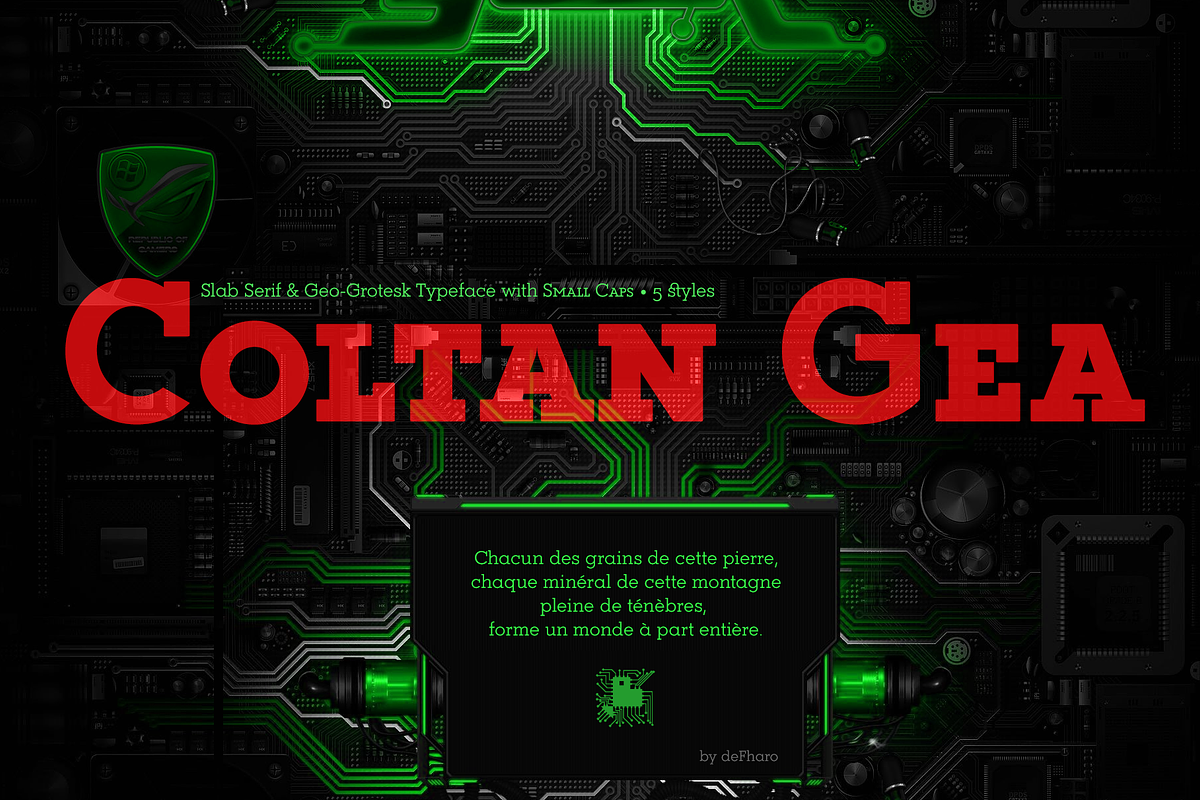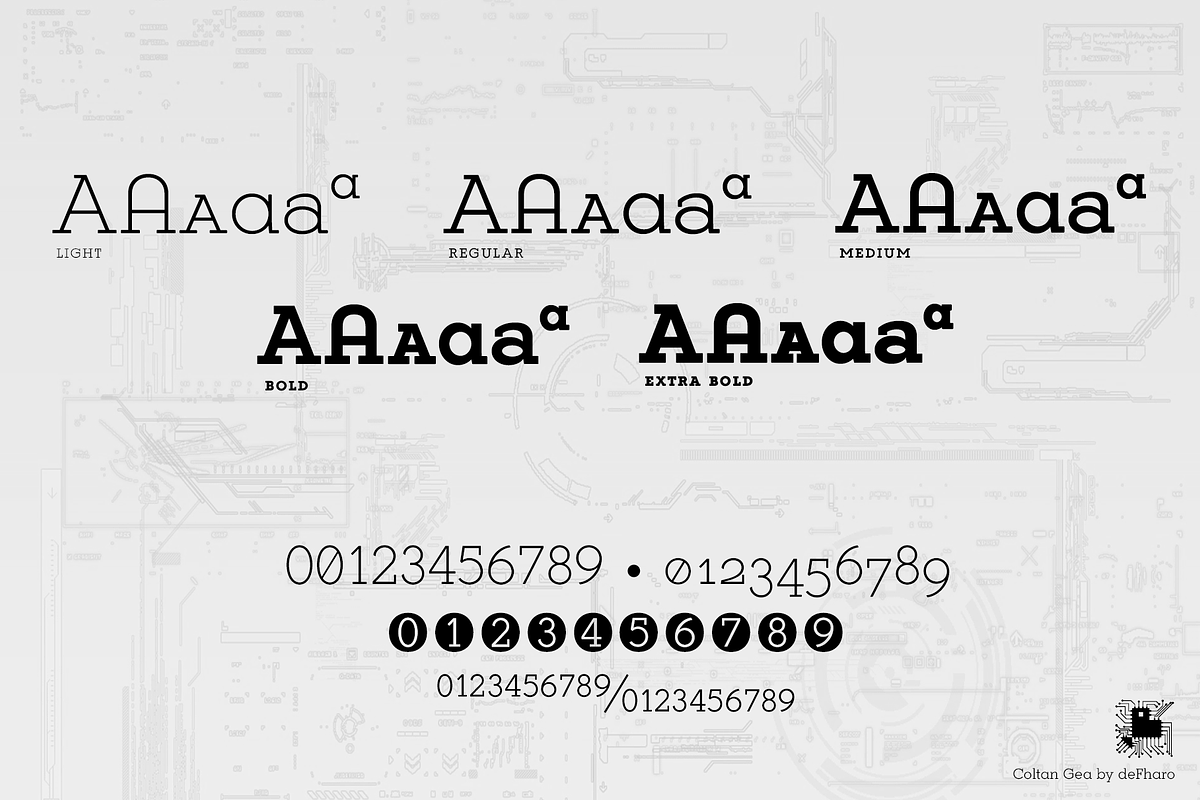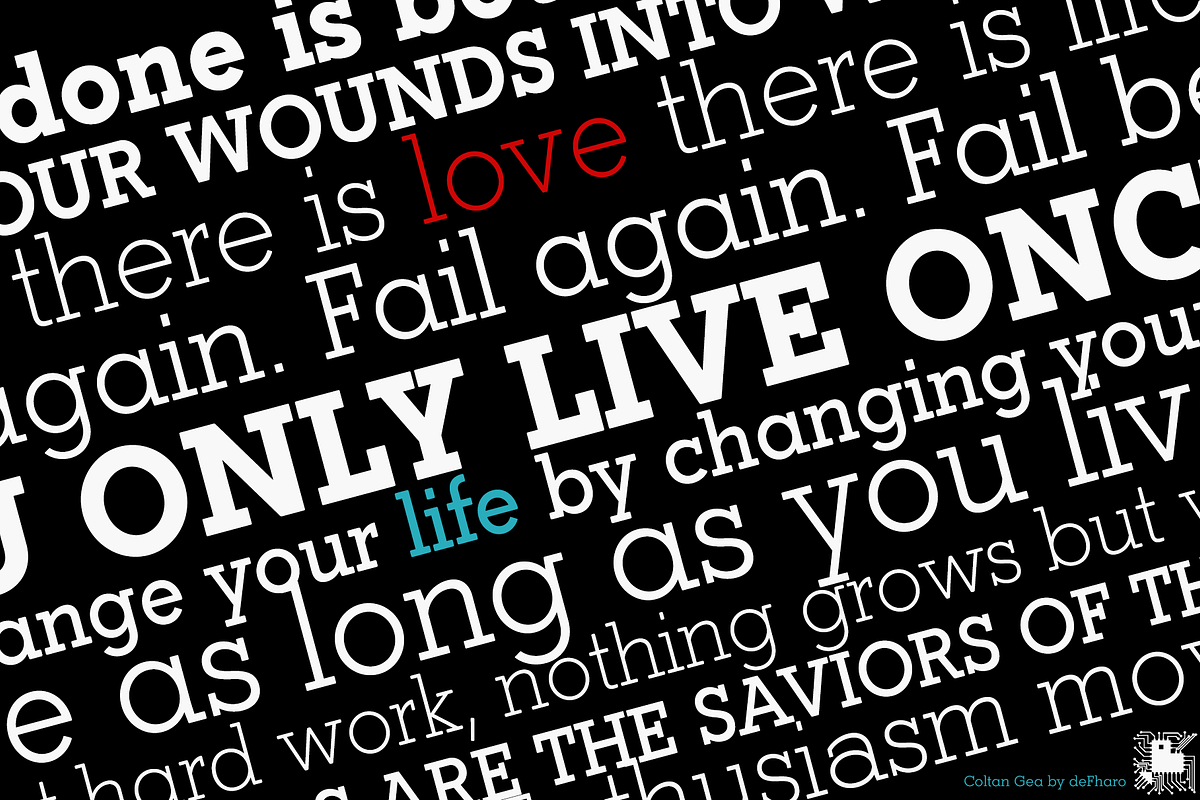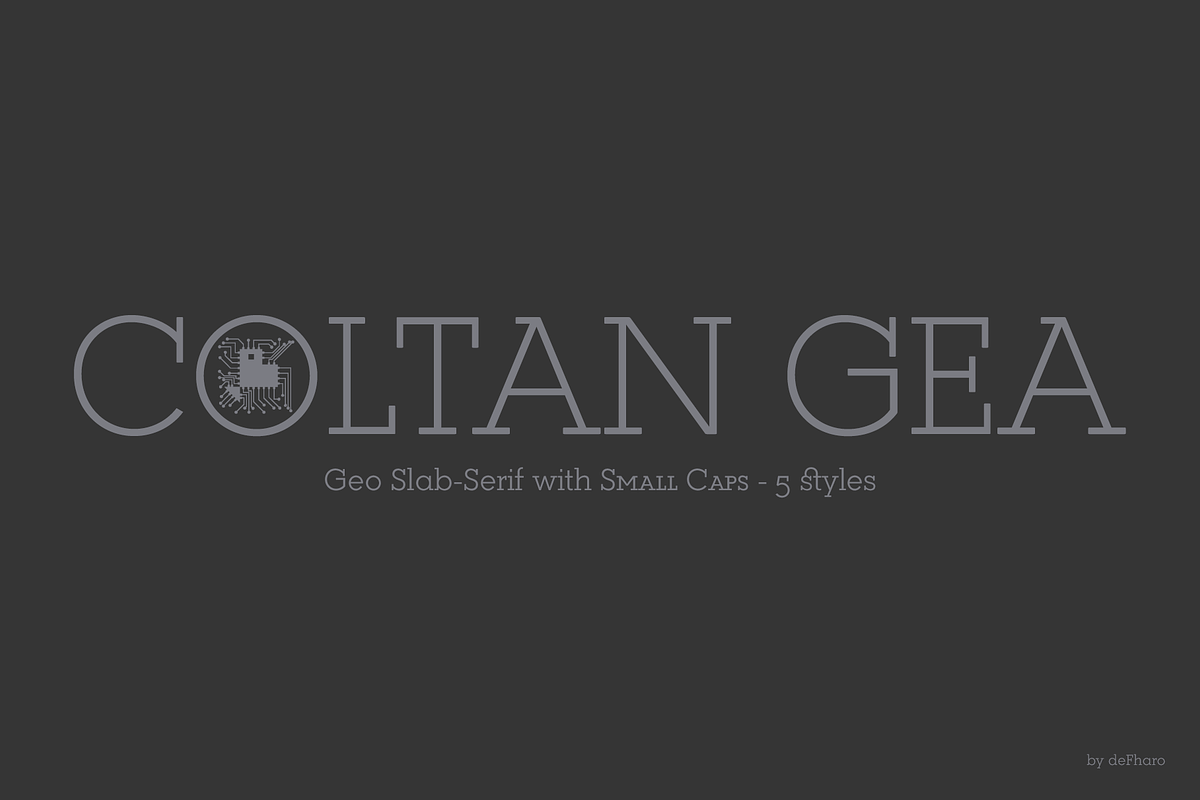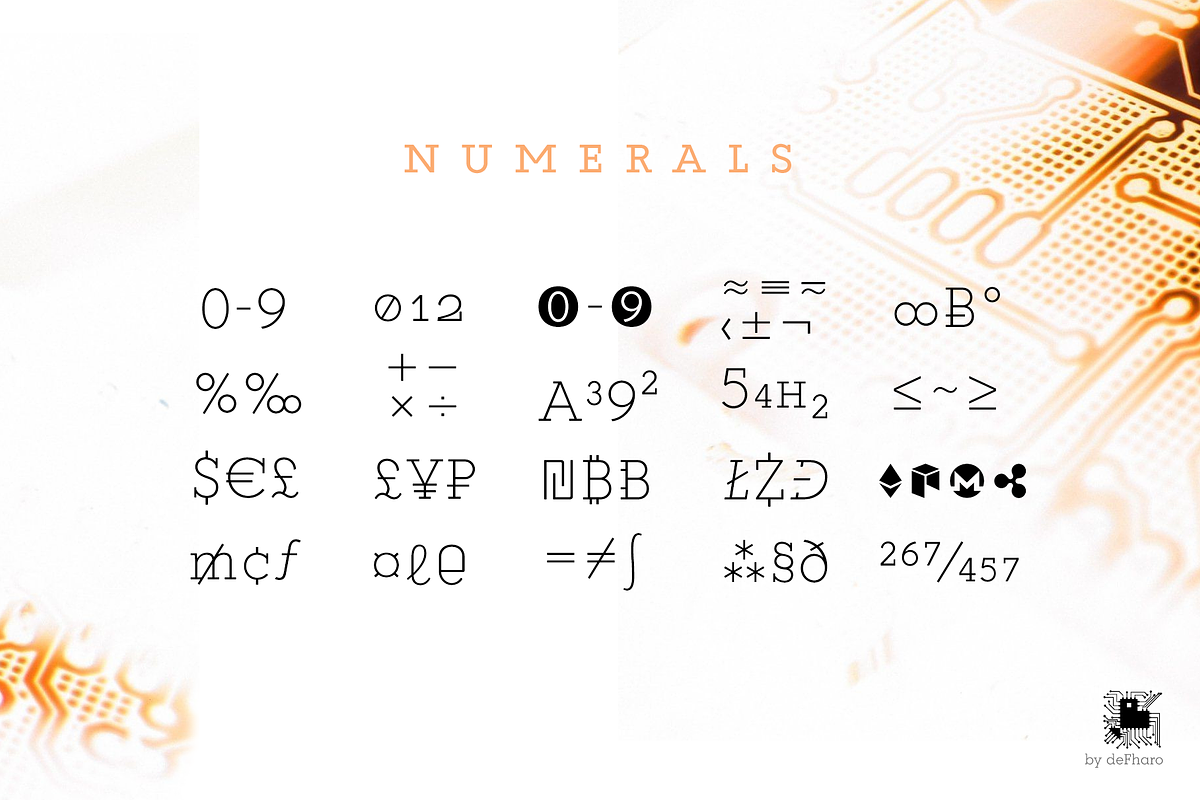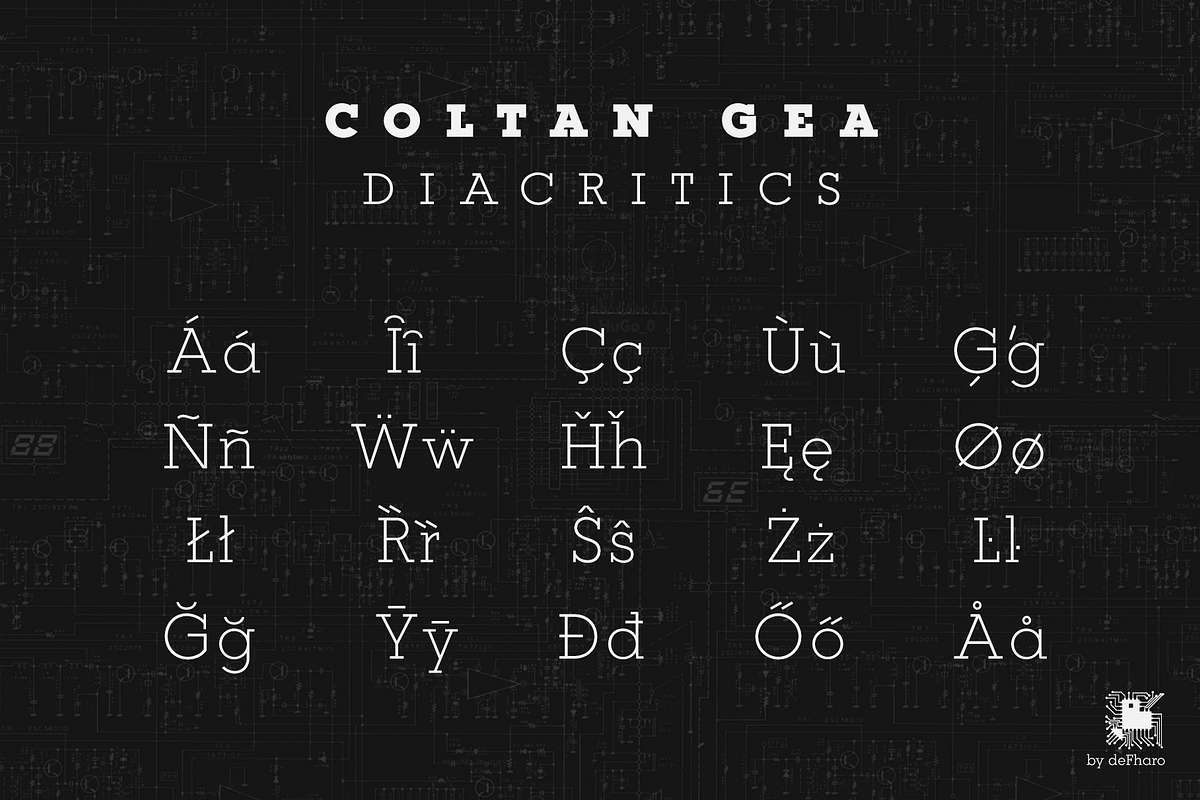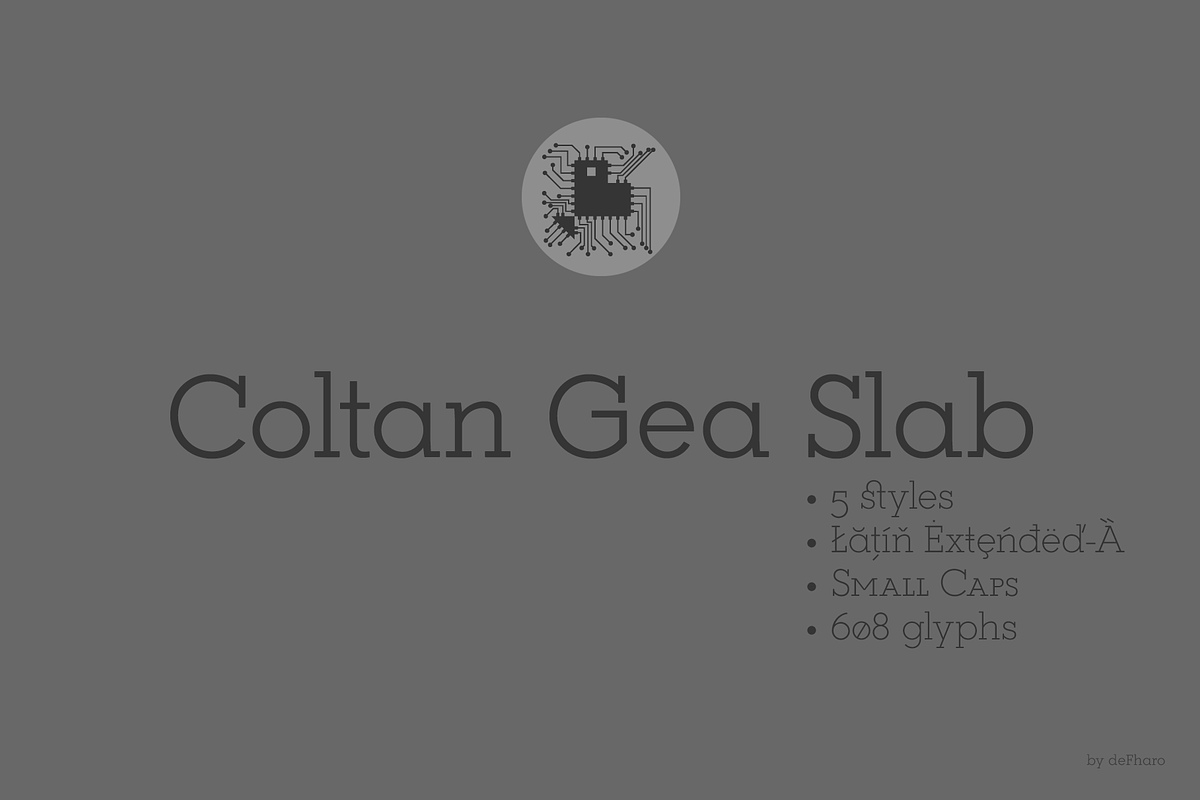
Coltan Gea Slab -5 fonts-
Coltan Gea is a Slab Serif typographic family with 5 Weights, include small capital letters and cryptocurrency symbols. It is a geometric, minimalist typeface, with neo-grotesque modulations and slightly rounded corners. The typefaces has alternative letters and numbers, small caps and advanced OpenType functions. The proportions, metrics and kerning I have configured meticulously for a perfect reading in any size for print and screen.
Coltan Gea Slab includes the symbol of Bitcoin and currency symbols.
OpenType Features: Additional languages, All Alternates, Alternate Annotation Forms, Capital Spacing, Denominators, Discretionary Ligatures, Extended Fractions, Historical Forms, Historical Ligatures, Inferiors, Kerning, Localized Forms, Numerators, Oldstyle Figures, Ordinals, Scientific Inferiors, Slashed Zero, Small Capitals, Small Capitals From Capitals, Standard Ligatures, Subscript, Superior letters, Superiors, Superscript.